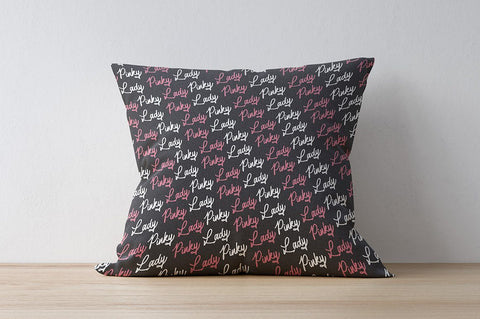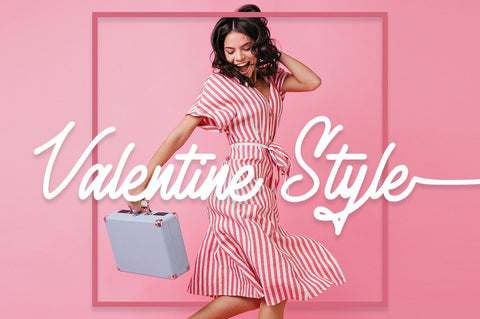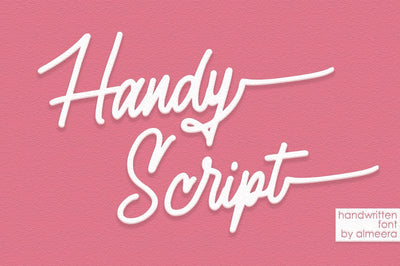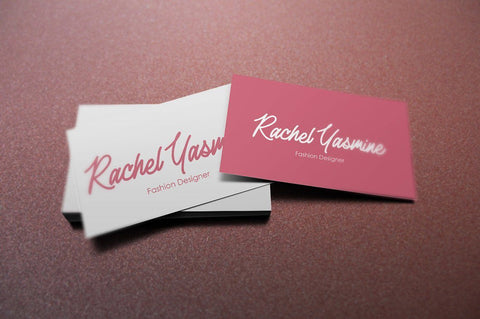
Handy Script
Handy Script is a handwritten font with a classy & natural flow. This collection of scripts is perfect for branding.this works well for many applications. Everything from branding , wedding invitations to advertising could benefit from this collection of signature fonts.They work well with something like Signature Photographers, Fashion, cosmetics,watermark, Liquor Labels, Signage, & any type of signature-styled logo.